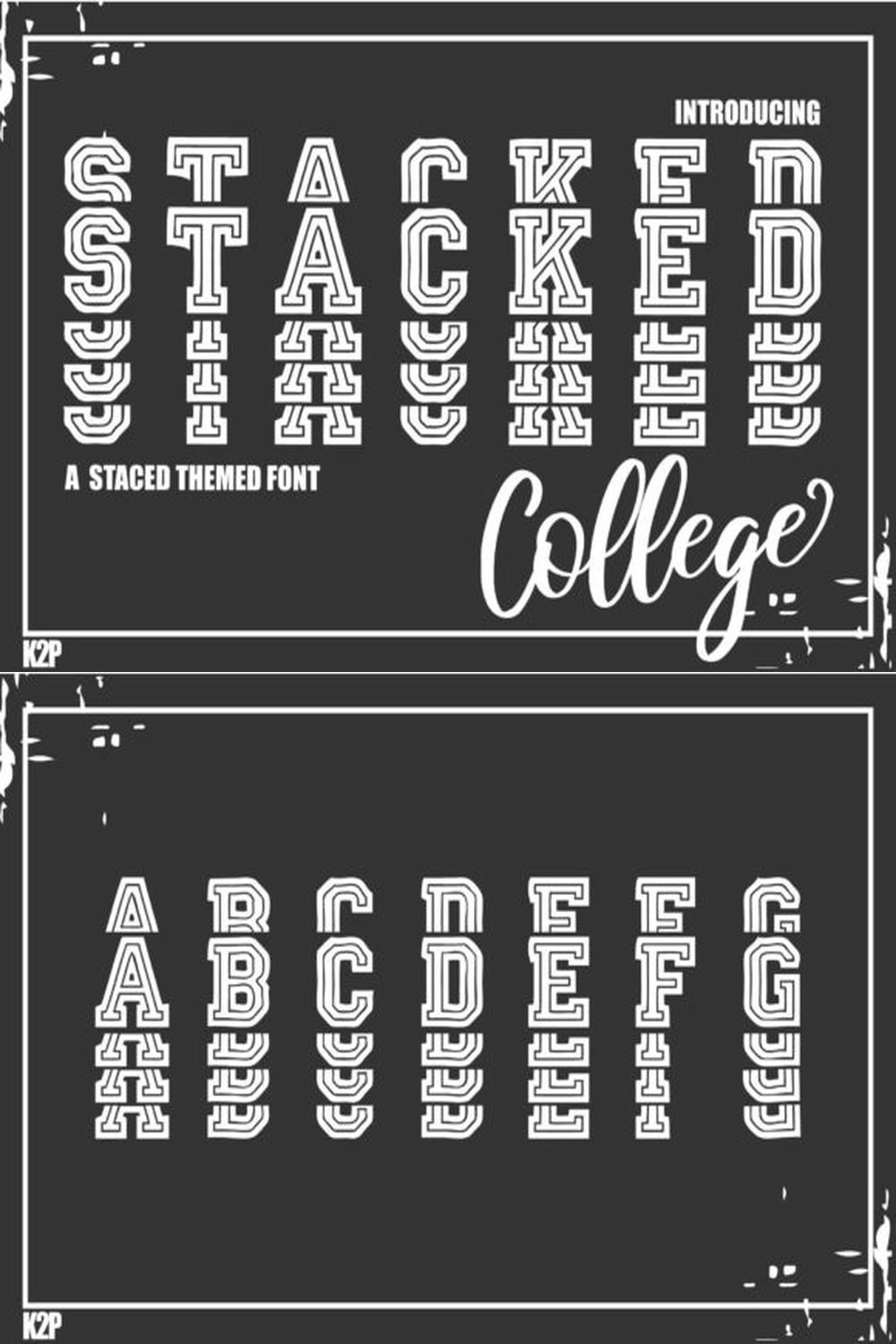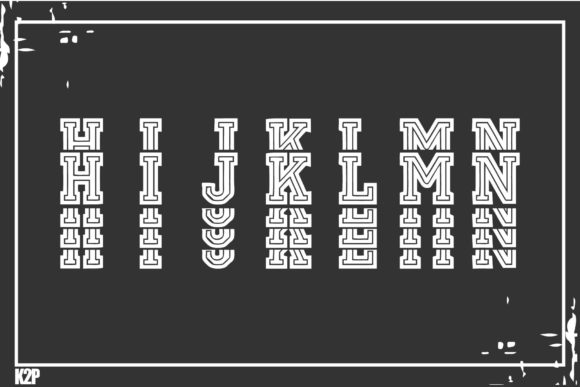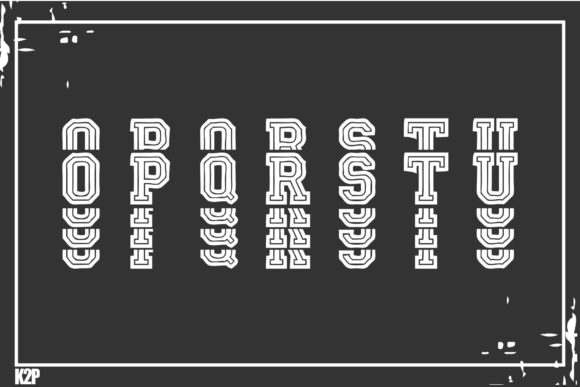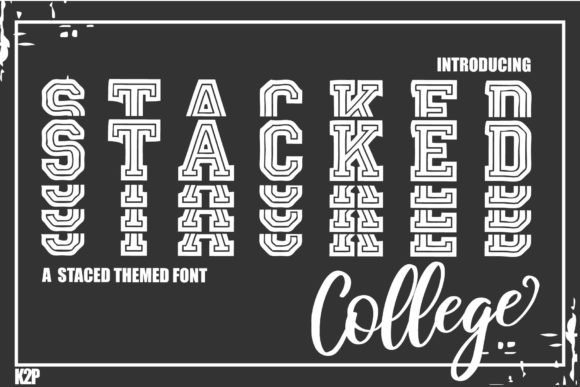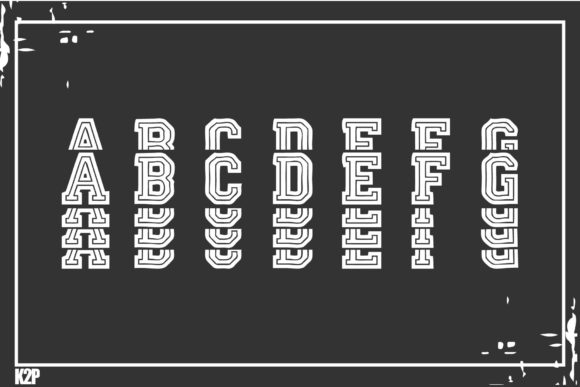
Stacked College Font: A Bold Display Font for Unique Branding
About the Stacked College Font
The Stacked College Font is here to transform your projects with its distinctive character and style. Stacked College is a bold and authentic display font. It has an incredibly cool style and it will make each of your designs stand out. Use it for sport, racing designs, or nearly anything related to speed and power.
Stacked College Font Usage Examples